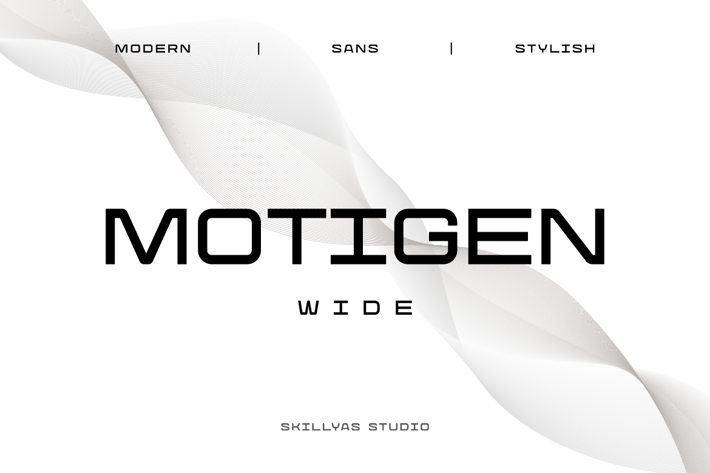
Motigen Variable sans-serif Font
Motigen Wide Font, a dynamic typeface with unparalleled versatility with its three distinct styles: Regular, Wide, and Extra Wide. Perfectly crafted for modern design, Motigen combines clean, contemporary lines with a touch of elegance, making it ideal for a wide range of creative projects.
Character:
- Uppercase & Lowercase Letters
- Punctuation & Symbols Support
- PUA encoded Range Standard Alternative Style
- Ligature (Standard and Discretionary)